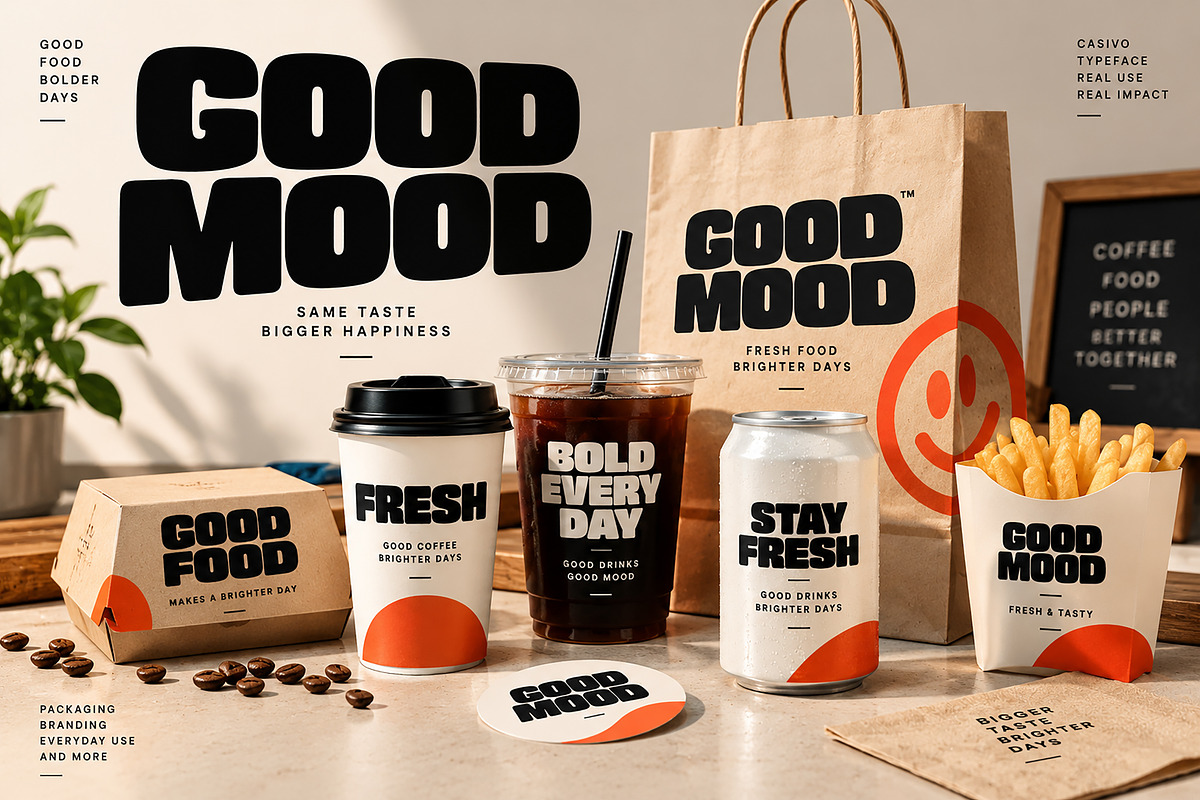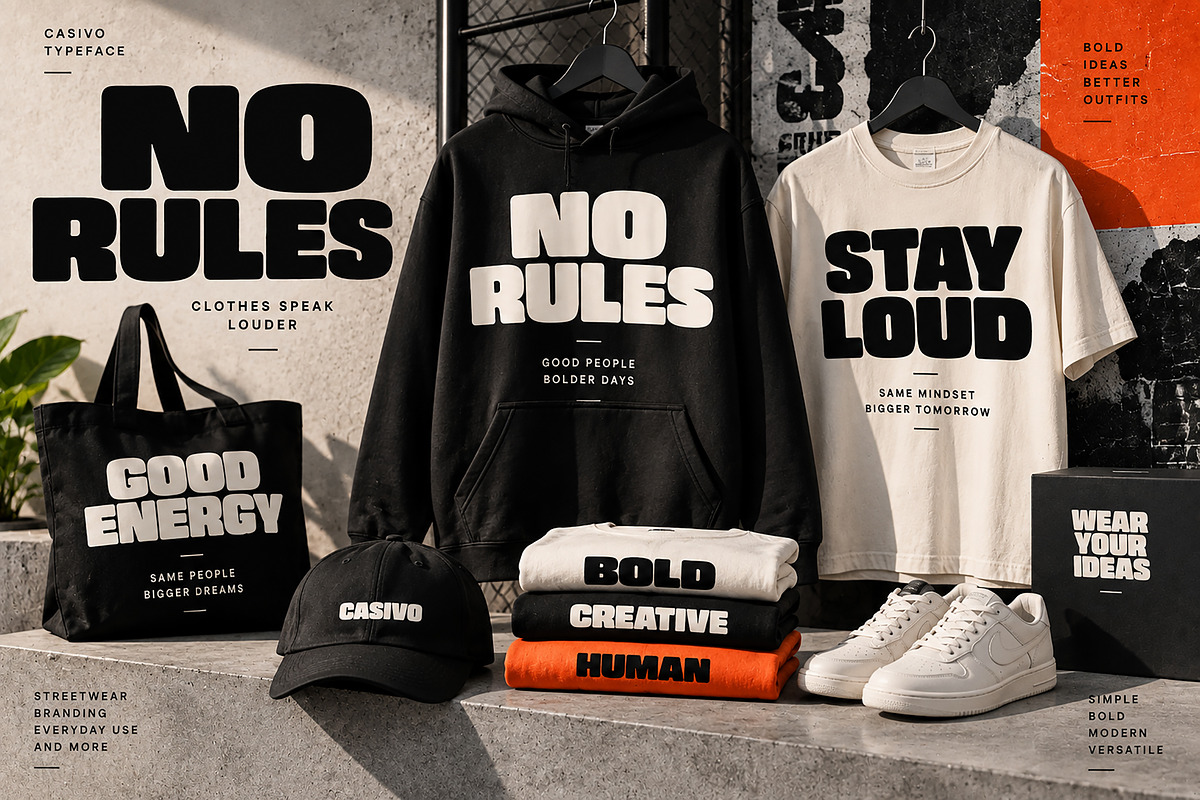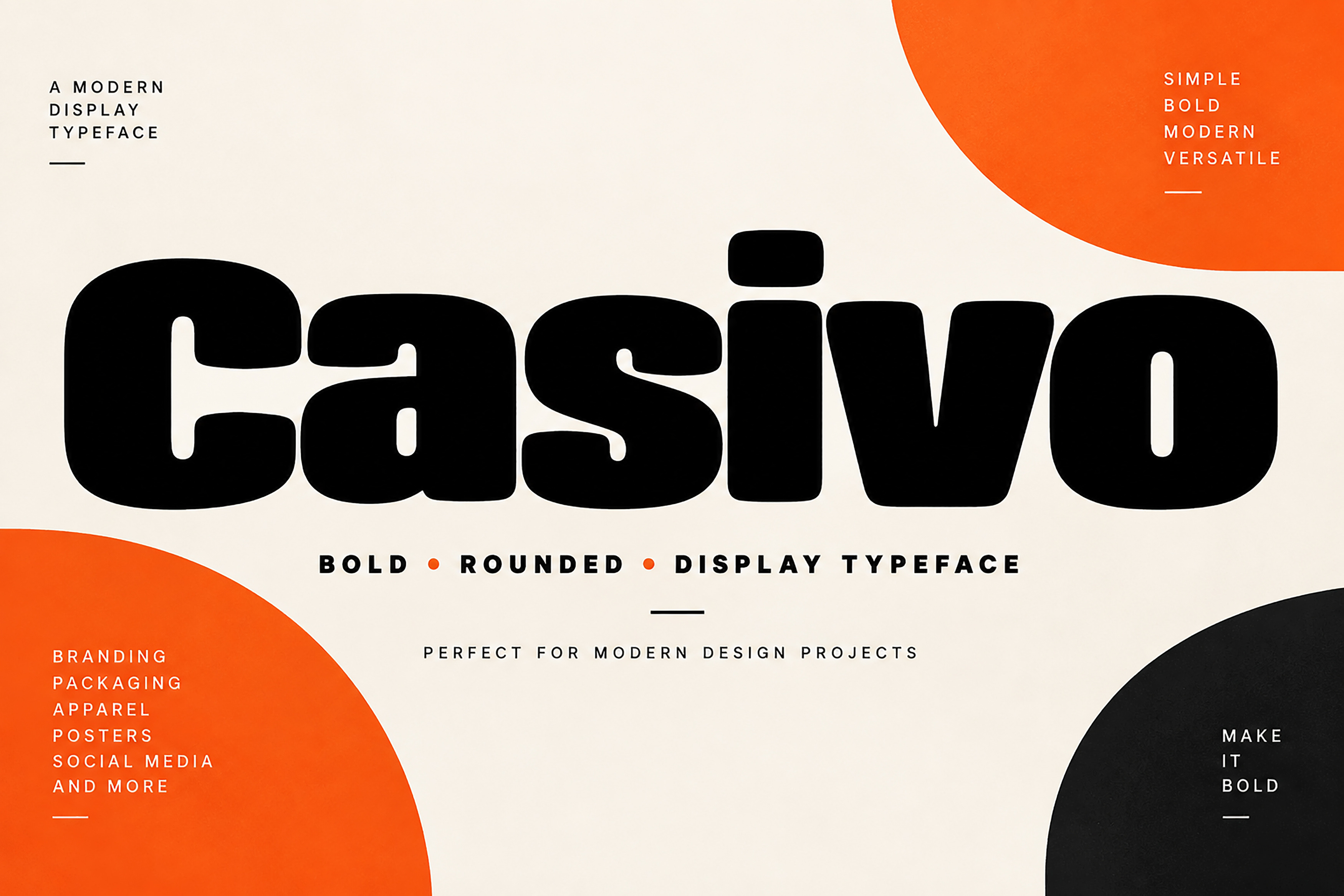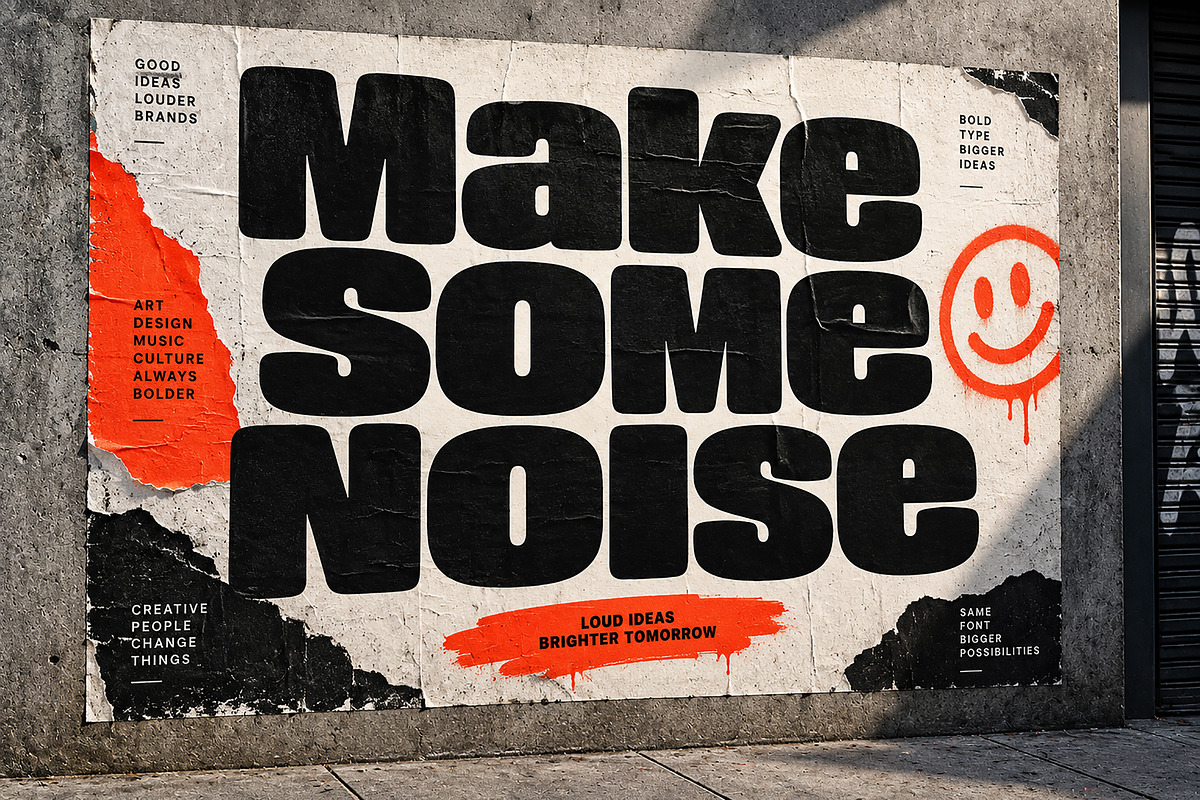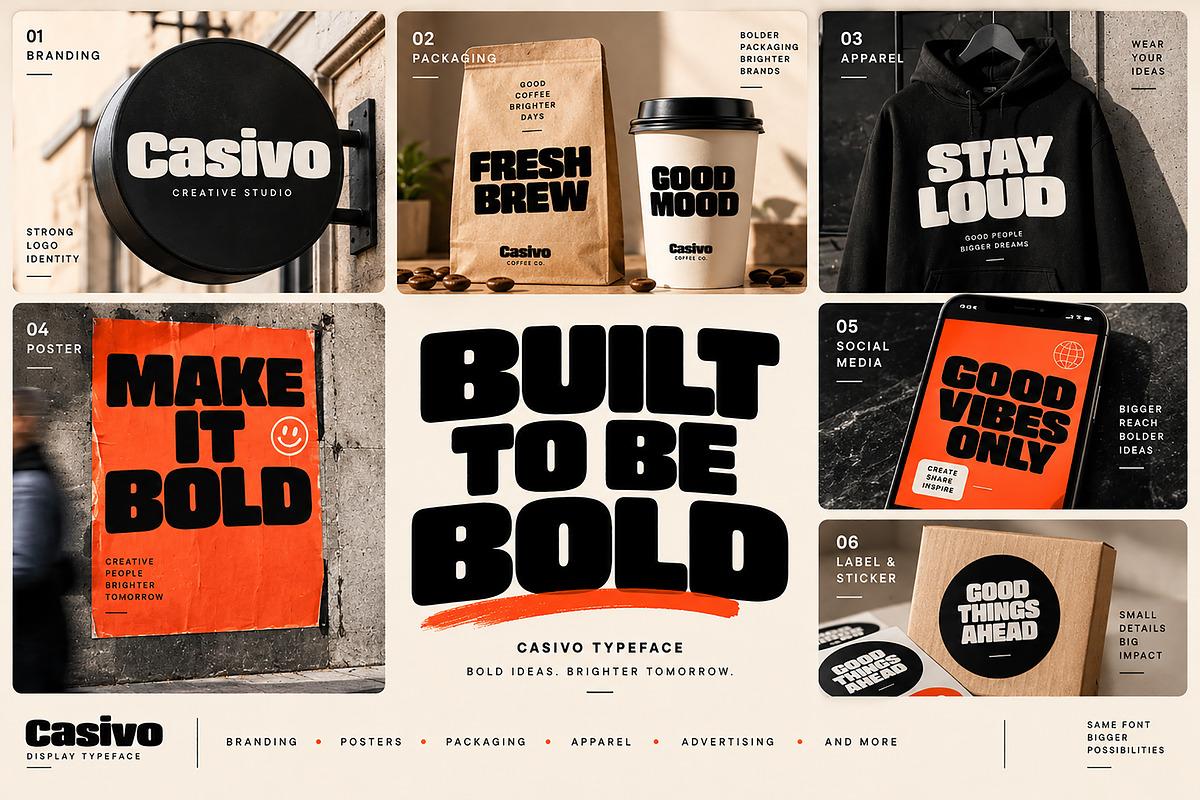
Casivo — Bold Rounded Display Font
Casivo is a bold, chunky display typeface designed to make every word stand out. With its heavy weight, rounded corners, compact proportions, and playful geometric character, Casivo brings a strong yet friendly personality to modern design projects.
Perfect for designers who need big, attention-grabbing typography, Casivo works especially well for branding, logos, posters, packaging, apparel, advertising, social media graphics, labels, stickers, headlines, and other bold visual projects.
Its distinctive rounded letterforms create a confident and contemporary look while maintaining excellent visual impact at large sizes.
Logo & Brand Identity
Posters & Advertising
Streetwear & Apparel
T-Shirts & Hoodies
Product Labels & Stickers
Headlines & Display Typography
Promotional Designs
Editorial Graphics
Creative Branding Projects
Bold & Heavy Display Style
Chunky Rounded Letterforms
Modern & Playful Character
Strong Visual Impact
Great for Large Headlines
Versatile for Branding & Commercial Design
Casivo — Make Every Word Bold.